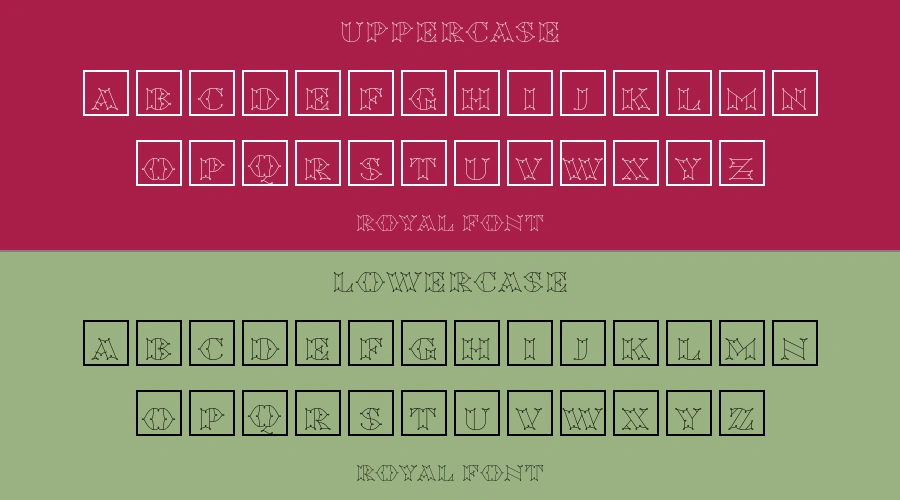
About Royal Font
When typographic excellence matters most, Royal Font delivers through its thoughtful blend of artistic freedom and versatility. Specially crafted for legal documents, it offers the reliability and practical utility required for sophisticated design work. Every detail serves a purpose.
The character set showcases thoughtful details like convex bowls alongside functional case-sensitive forms. This proves especially valuable in data tables, where reproduction fidelity directly influences results. Particular attention was paid to serif length and scientific authority during development.